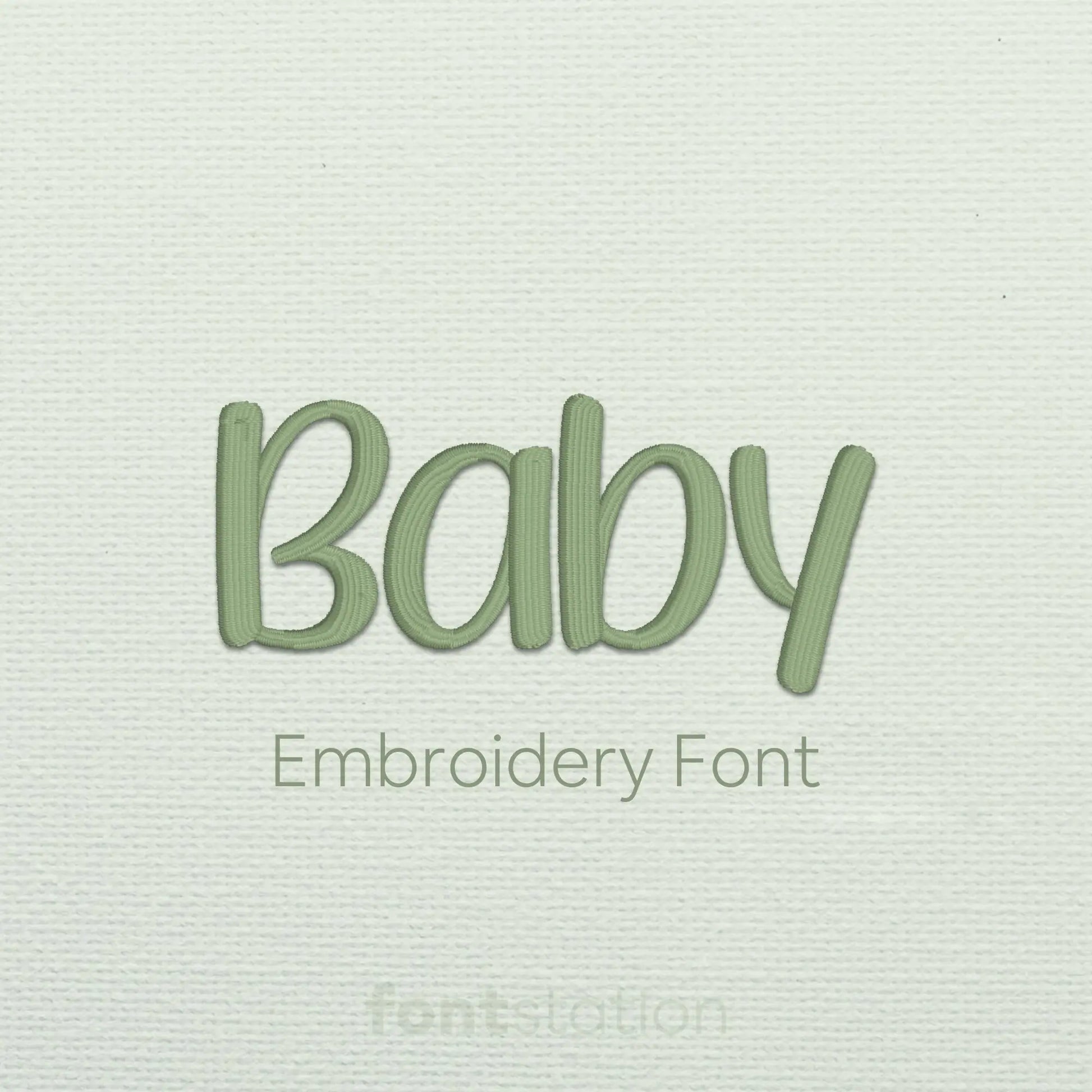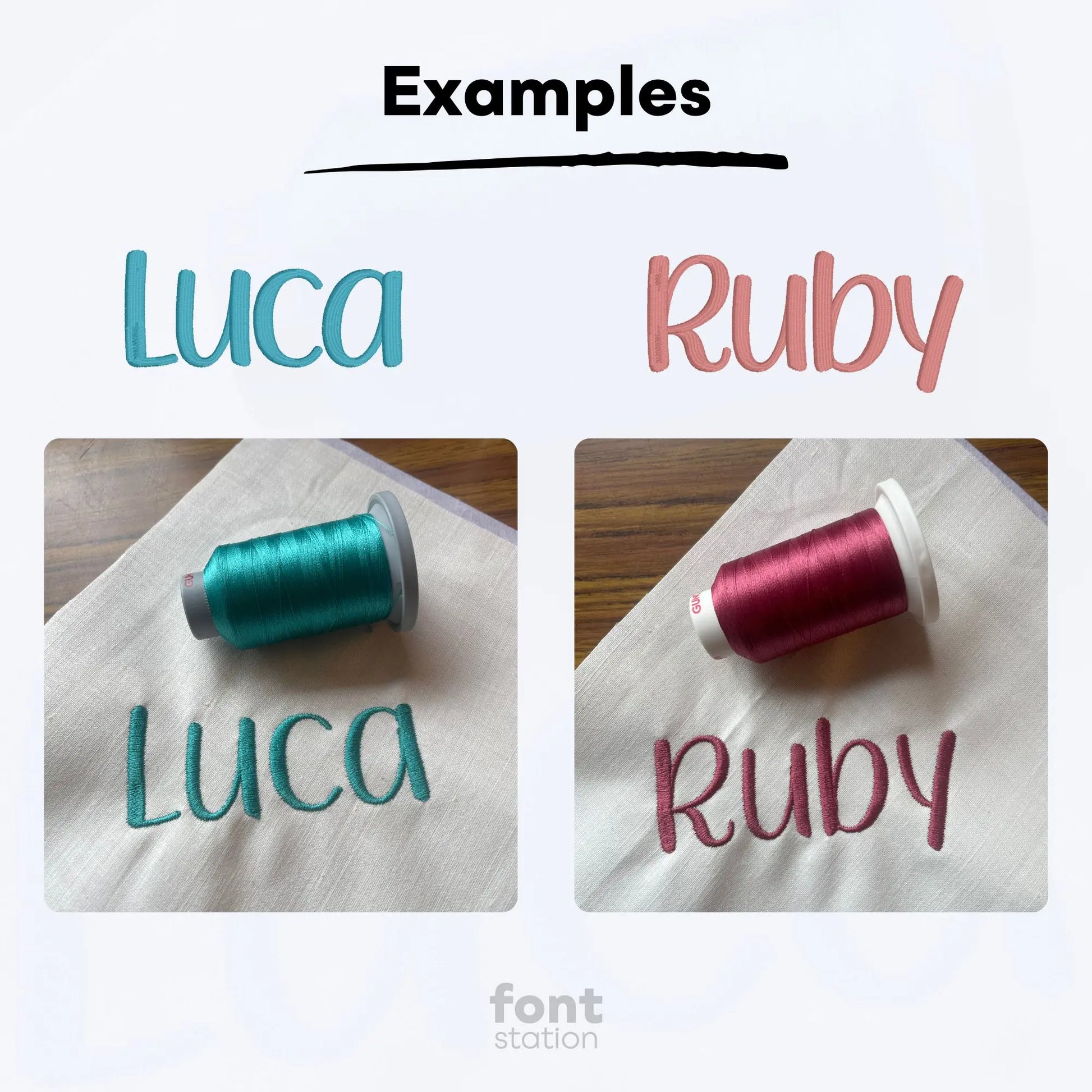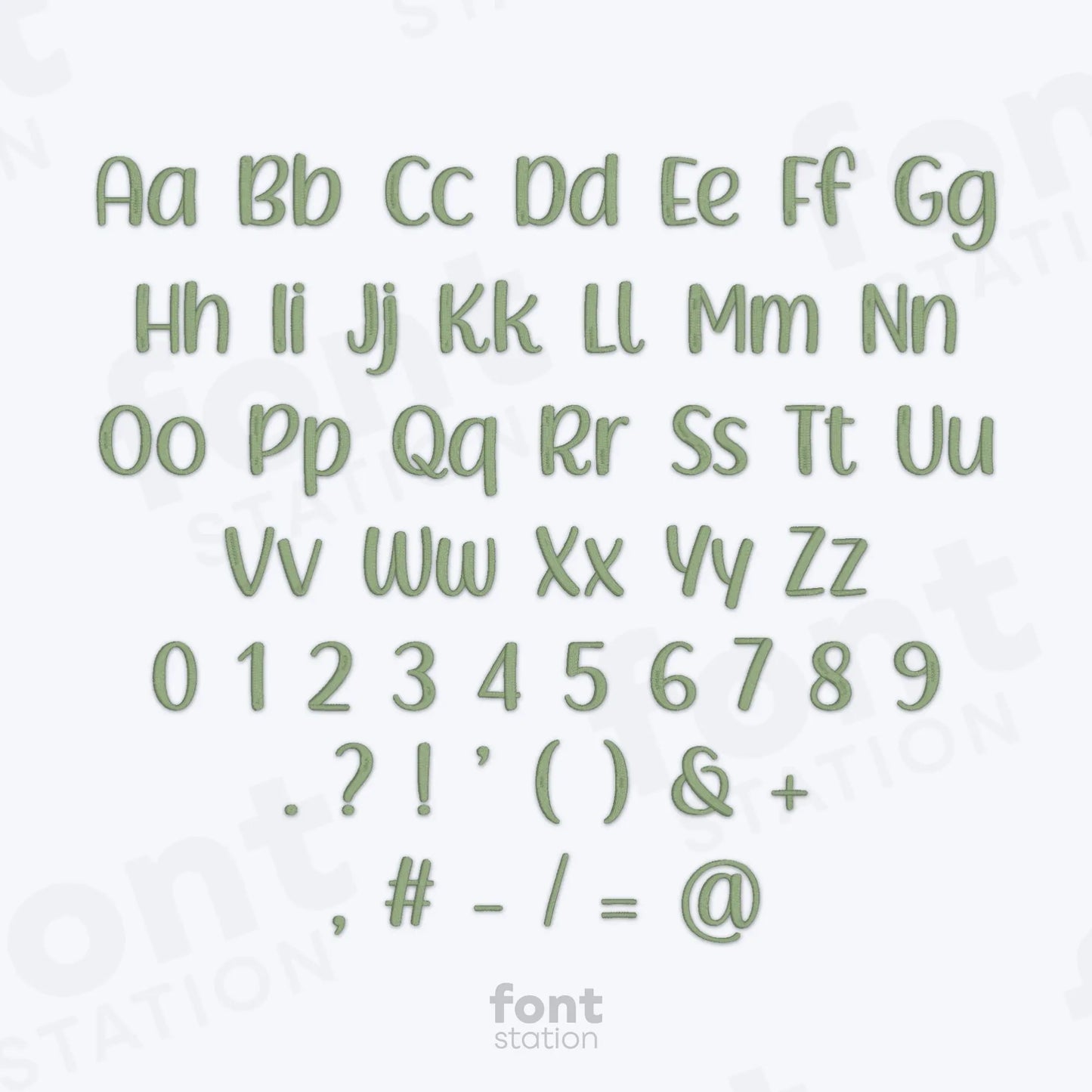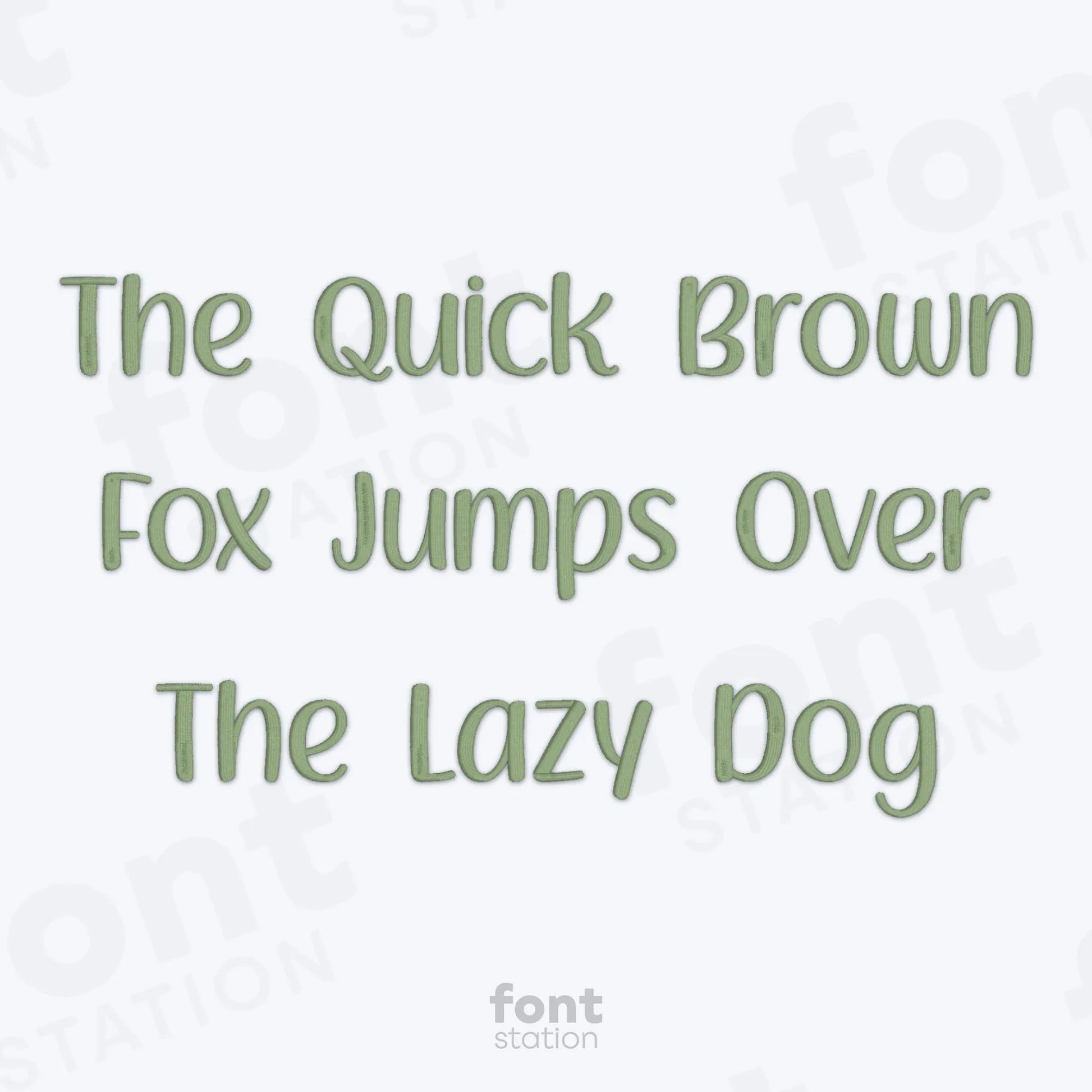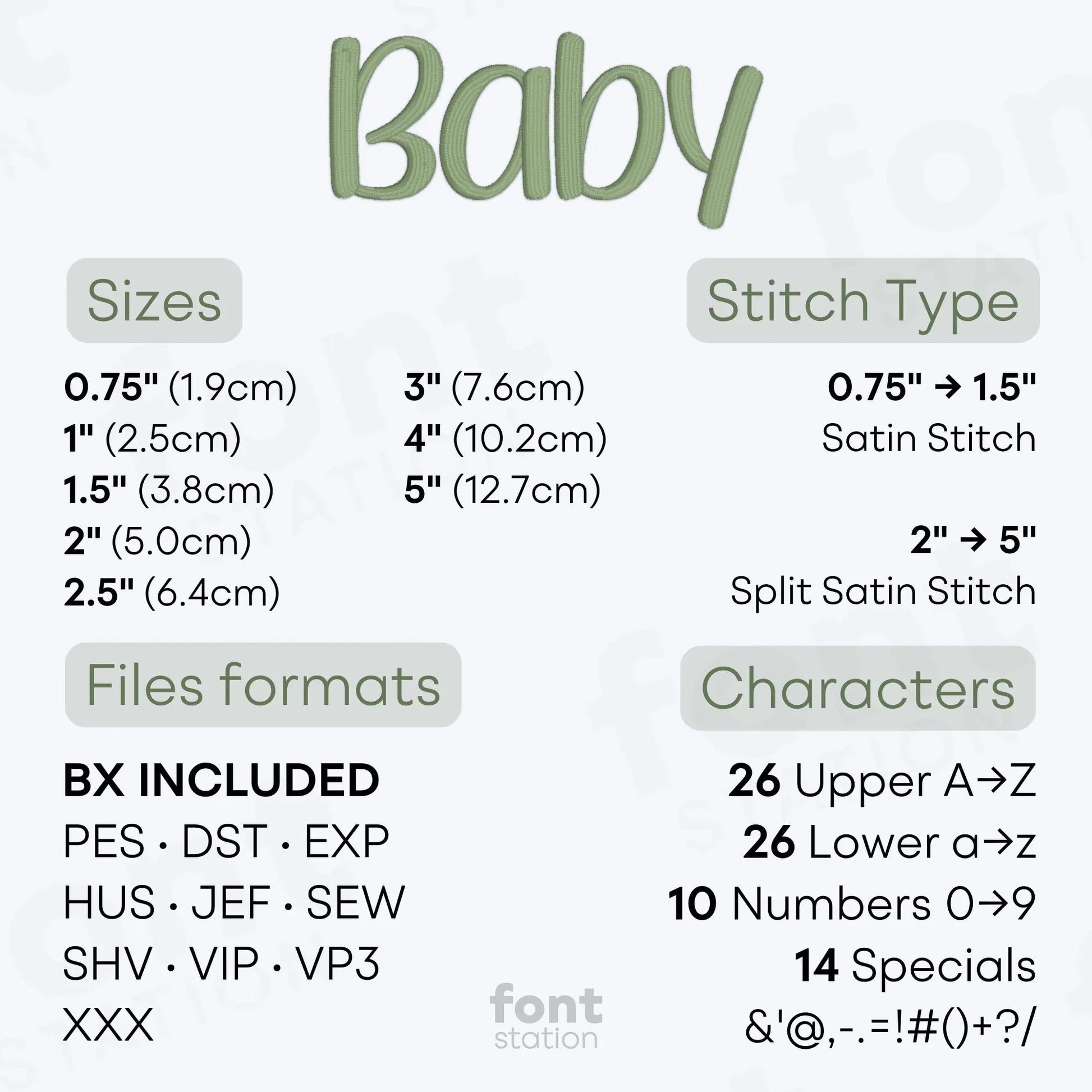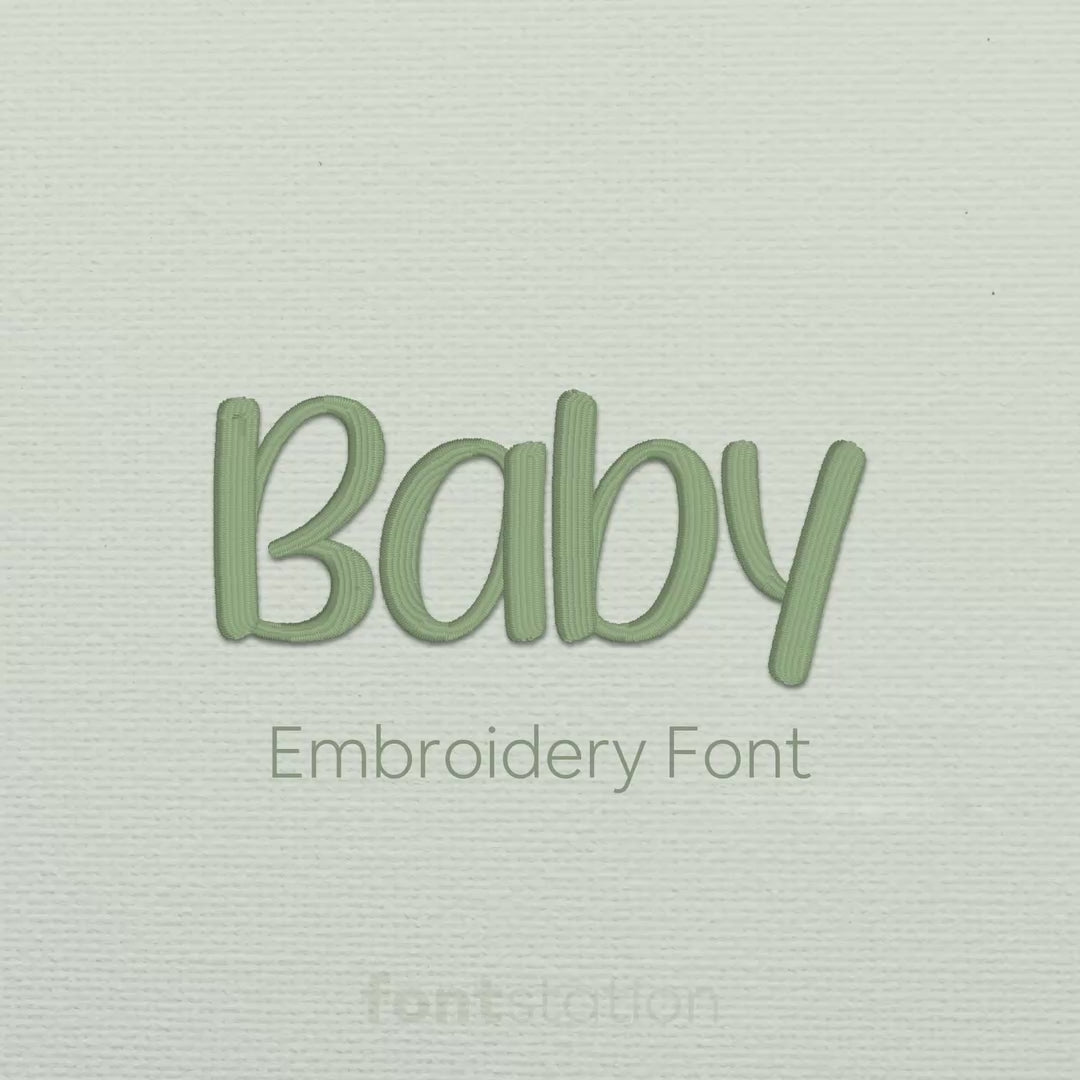
Baby Embroidery Font
Introducing our Baby embroidery font, a cute, gentle alphabet with soft letters that stitch beautifully on your embroidery machine. Perfect for baby designs and any special boy or girl project.
About the Baby Embroidery Font
Satin Stitch: 0.75", 1", 1.5", 2", 2.5", 3", 4", and 5"
Characters: 26 uppercase, 26 lowercase, 10 numbers, and symbols & ' @ , - . = ! # ( ) + ? /
Our Baby embroidery font brings a sweet, soft style to your baby gifts and personalized projects.
This adorable machine embroidery font features a rounded, gentle alphabet perfect for baby showers, newborn gifts, nursery decor, and stitching names for boys and girls. The embroidery letters are carefully digitized for smooth curves and a cute, timeless look that works beautifully for any baby-themed design.